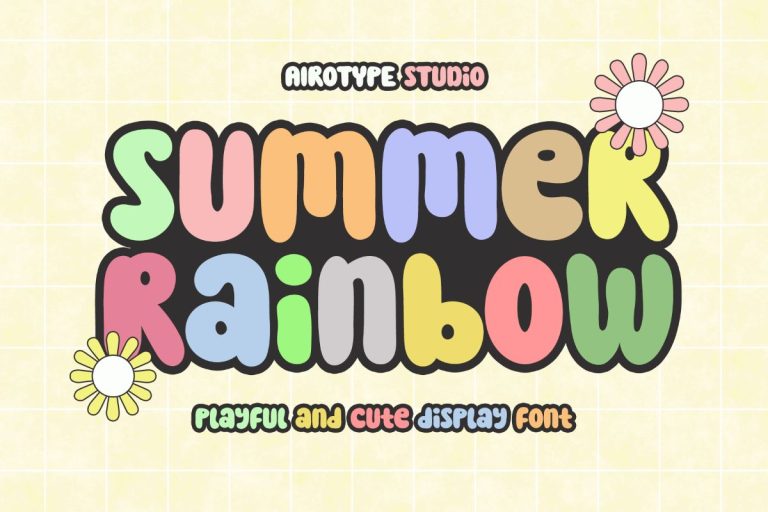
- Summer Rainbow
Summer Rainbow is bold and playful display font. This font combines fun and bouncy vibes, that will emerge bright and festive tones.
Summer Rainbow is pretty font for wide ranges of design with cute theme, such as t-shirt, display, crafting, sticker, quotes, tumbler, sublimation, holiday, summer, and many more.